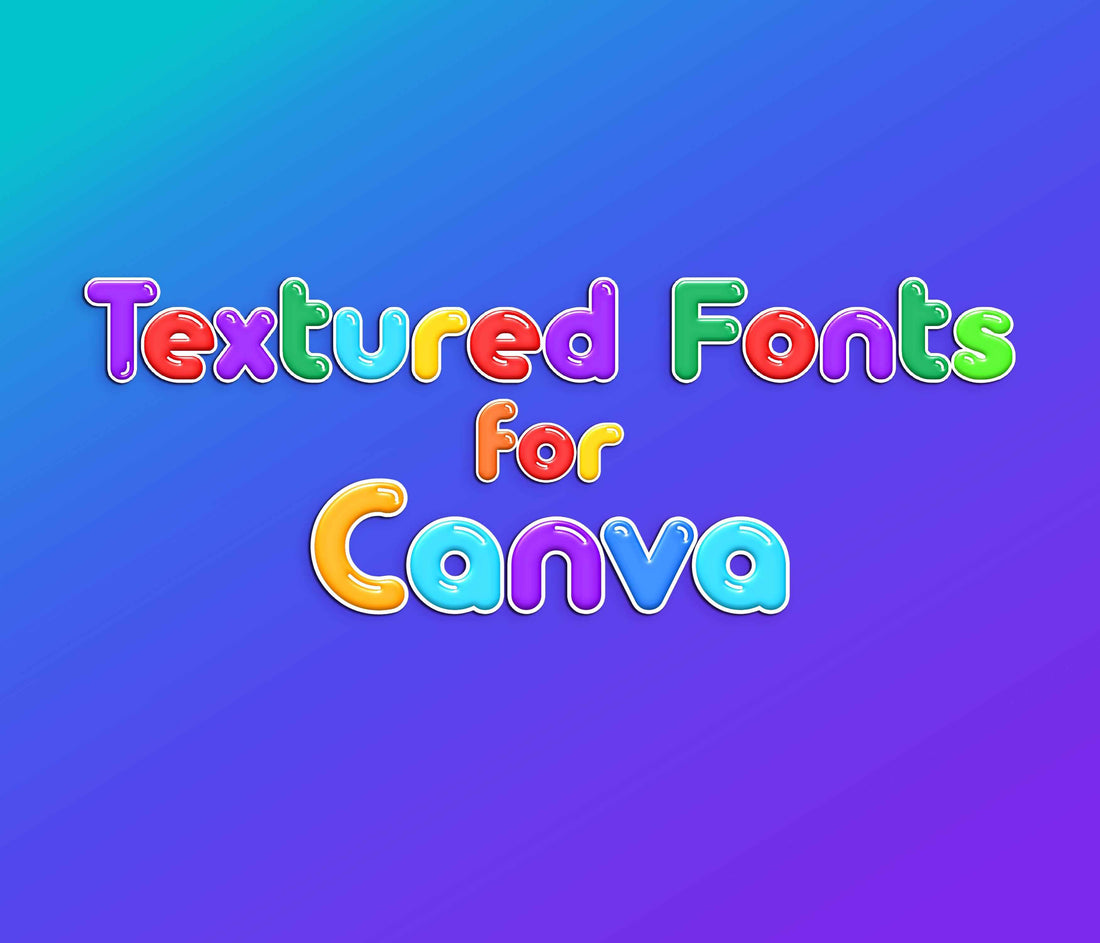
How To Use Bitmap Textured Fonts In Canva
Are you an Etsy shop owner looking to spice up your custom t-shirt, mug, cake topper, or themed party creations? Textured fonts from Texturedfonts.com are your secret weapon! Especially in a versatile design tool like Canva, these fonts can add a unique touch that sets your products apart. Here’s why our fonts are perfect for Canva users and a step-by-step guide on how to use them effectively.
Why Use Textured Fonts in Canva
Uniqueness: Our collection at Texturedfonts.com, inspired by popular culture, movies, and cartoons, offers exclusive textures that make your designs stand out. Whether it’s a vintage look from a classic cartoon or a bold statement from a blockbuster movie, our fonts add a layer of design that attracts customers looking for something truly special.
Versatility: These fonts are designed to be versatile across various products, making them perfect for Etsy shop owners who specialize in custom merchandise. Our colored textured fonts work seamlessly in Canva, allowing you to create consistent aesthetics across different items.
Ease of Use: Canva’s user-friendly platform combined with our textured fonts makes design accessible to everyone, from beginners to experienced graphic designers. This ease of use enhances your creative process, saving you time and effort.
Conclusion
Using our colored textured fonts in Canva can significantly elevate the quality and appeal of your products, making them stand out in a crowded marketplace. Follow these steps to start incorporating unique fonts into your designs and watch your Etsy shop thrive!